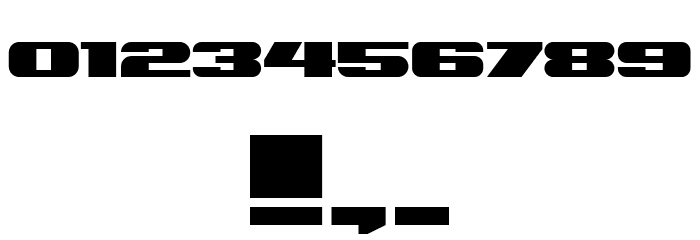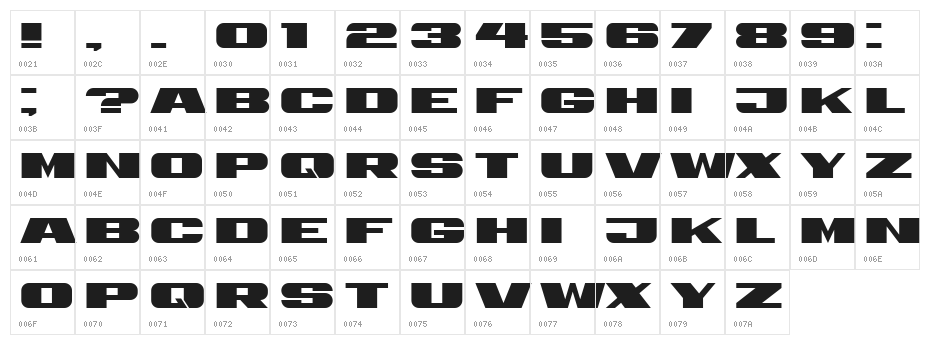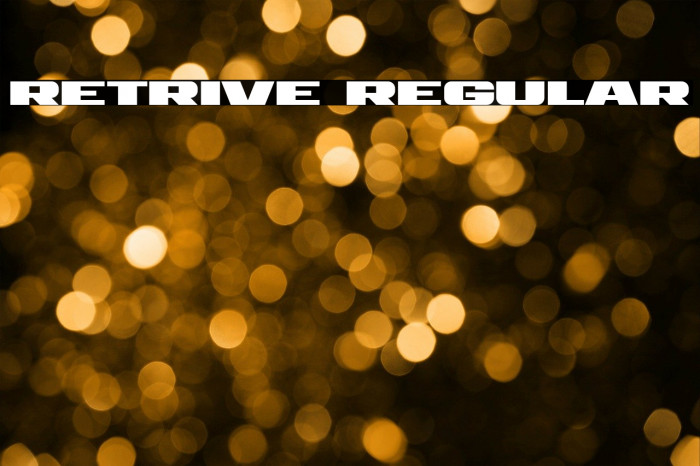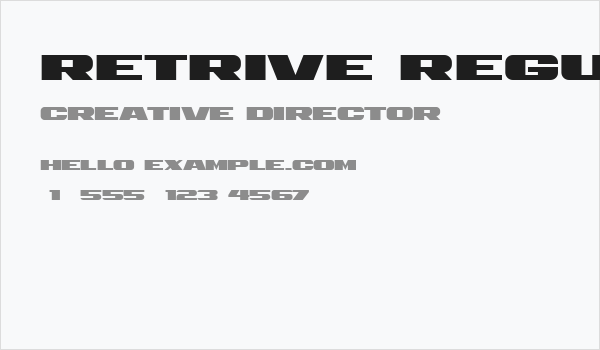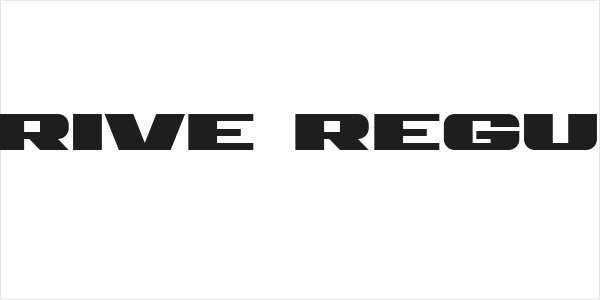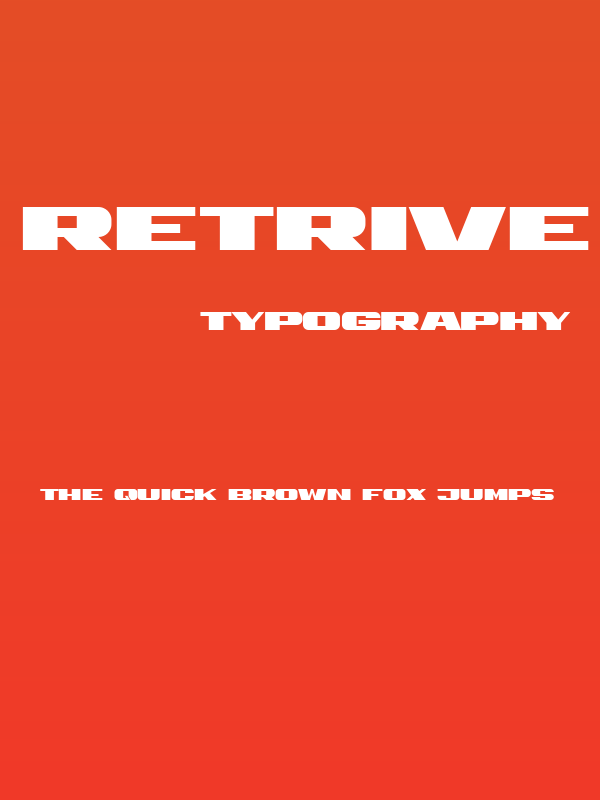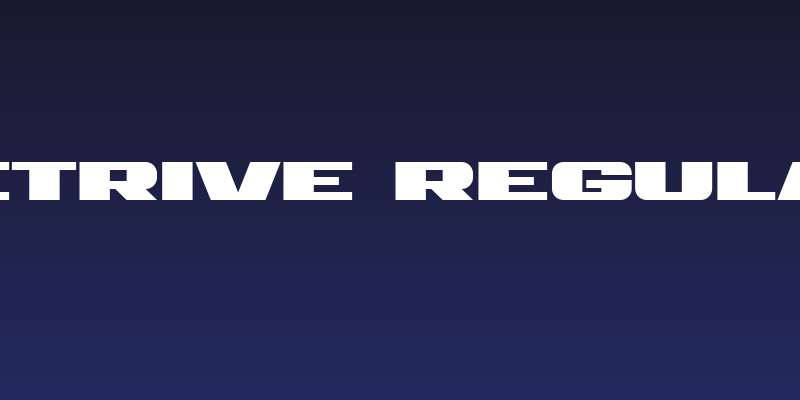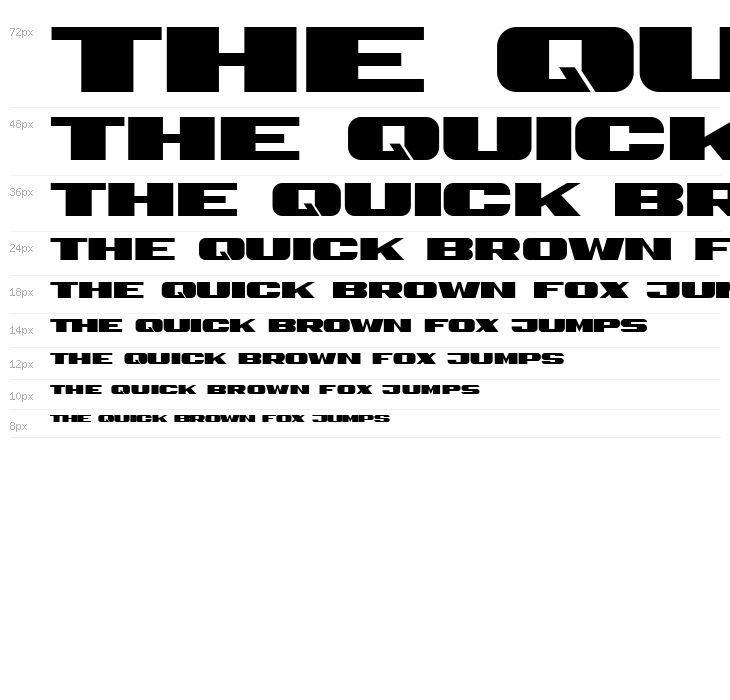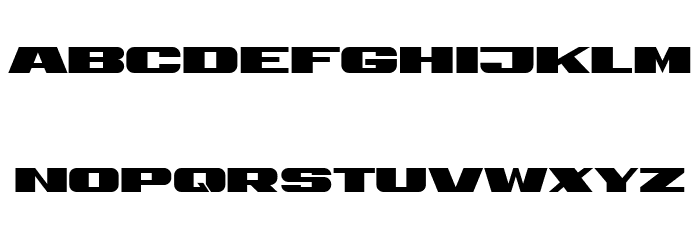
Retrive Regular Font
Retrive Regular Description
This font is a bold, impactful typeface with a strong presence. Its thick, blocky letters are designed to grab attention, making it ideal for headlines and titles. The characters are uniformly wide, giving a sense of stability and strength. The uppercase and lowercase letters maintain a consistent style, with sharp edges and a modern aesthetic. The numbers and special characters are equally bold, ensuring they stand out in any design. This font's design is perfect for projects that require a powerful and assertive look.
| Proposed Projects | Perfect for posters, banners, logos, and any design needing a strong visual impact. |